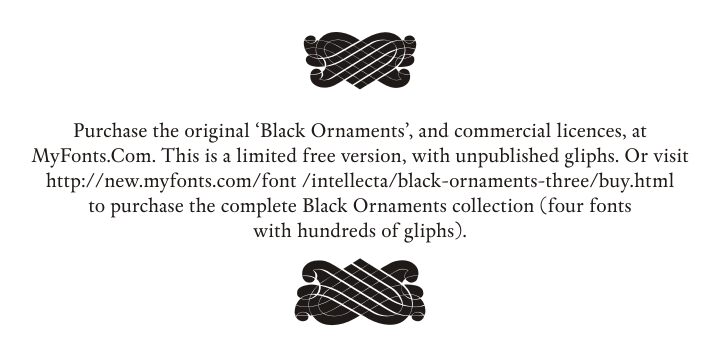
Black Ornaments by Paulo W of Intellecta Design is a free artistic ornament font filled with interlaced flourishes, braided bands, and symmetrical emblems. The designs range from compact knots to broad, curling compositions.
In publishing, these intricate symbols can shape chapter openings, dividers, and decorative title pages with an ornate engraved look. They also suit invitation borders and heritage-inspired packaging, especially when a repeated knot or scroll can become part of the graphic theme. The collection is aimed at designers working on formal, historical, or craft-focused projects that call for decoration rather than conventional lettering.
Black Ornaments Free by Intellecta Design is a “limited free” version containing previously unpublished glyphs from the original Black Ornaments font.